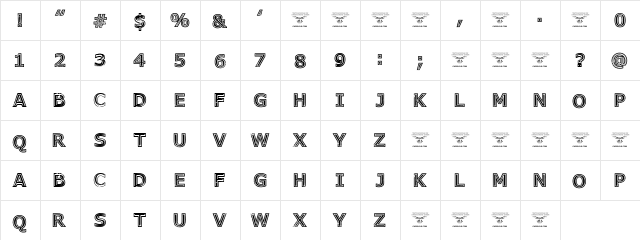
Genesee St Black Black
| Foundry | Font Monger |
| Designer | Chris Vile |
Design Context for Genesee St Black Typeface
Genesee St Black is a composed and adaptable typeface that performs quietly and consistently across a wide range of design contexts.